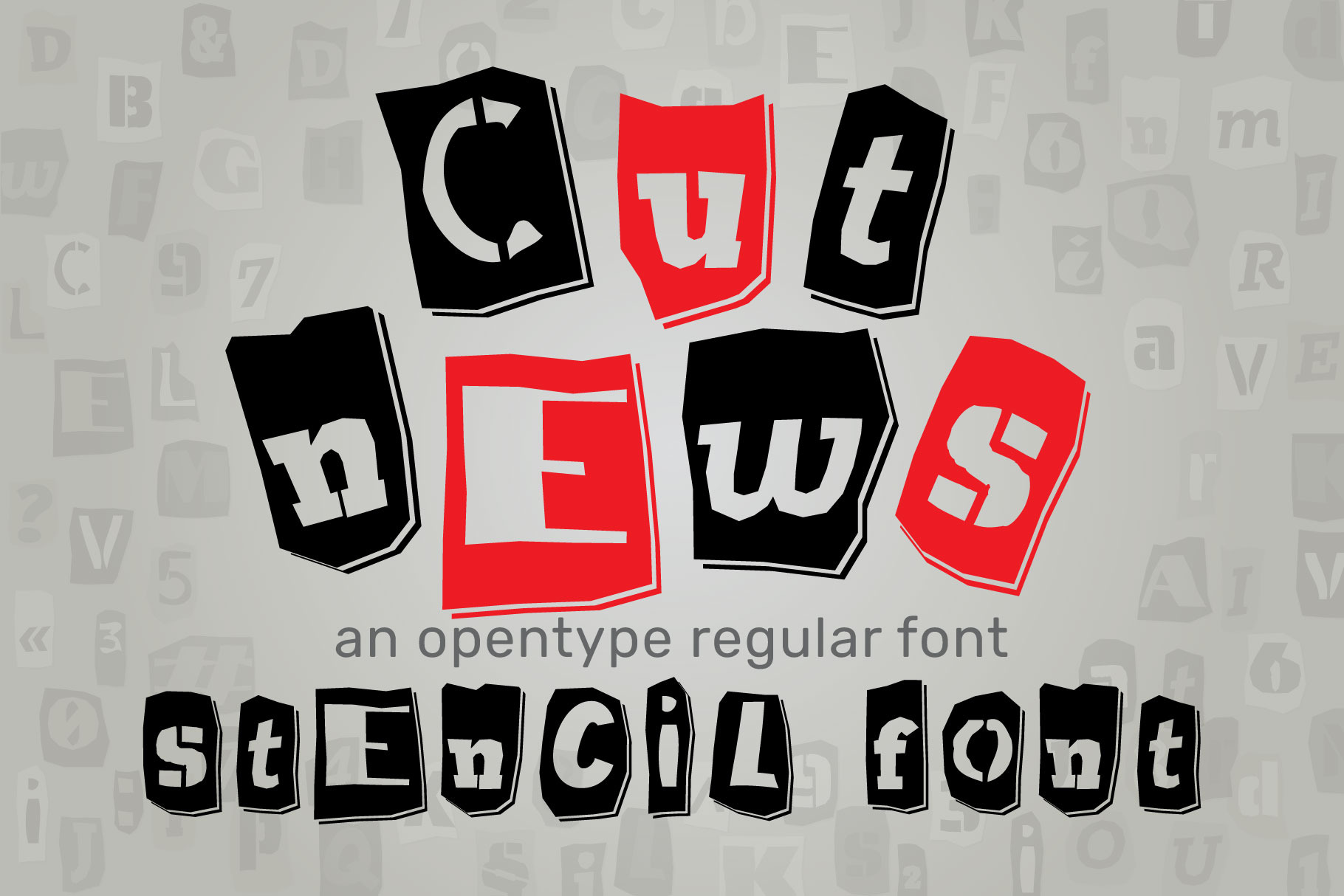
Cut News Stencil Black regular font
Cut News Stencil Black - Modern display grotesque sans-serif font.
Alphabet in cut out magazine letter collage style. You can use this font for your design, quotes prints on t-shirts, modern typography posters, children posters and lovely cards and… other. You will receive this ransom font in 5 formats: otf, ttf, woff2, woff, svg Try the new sweet font :)